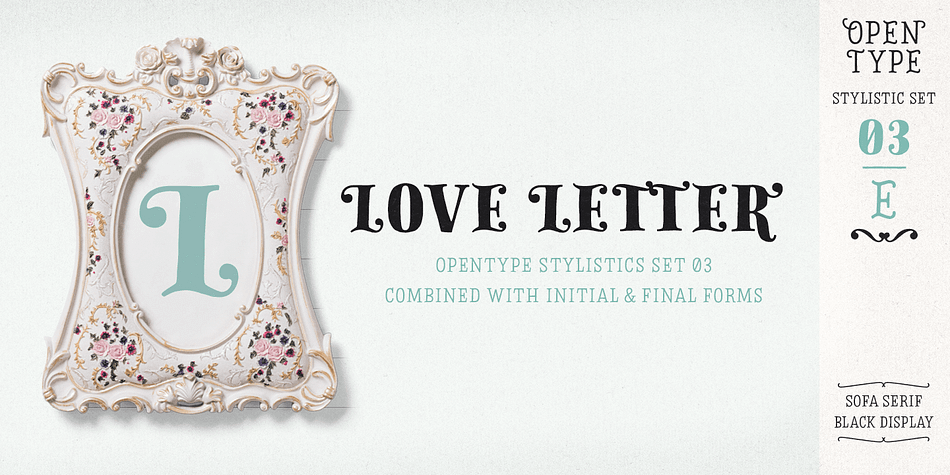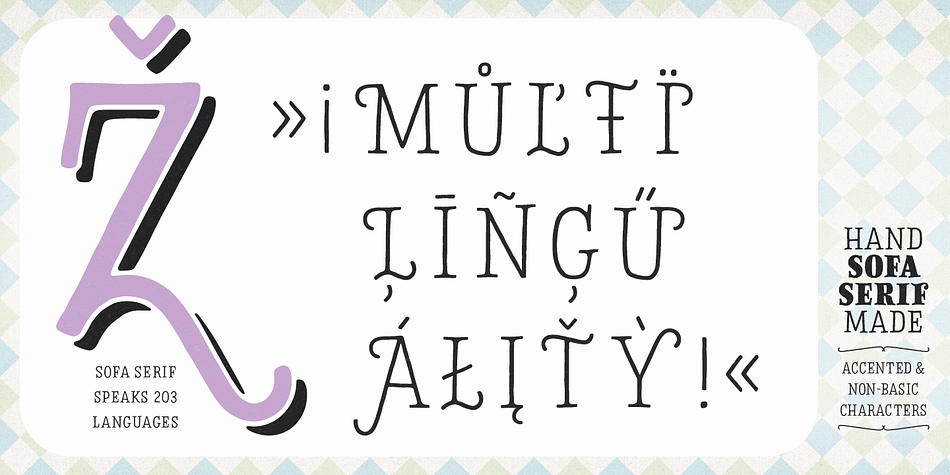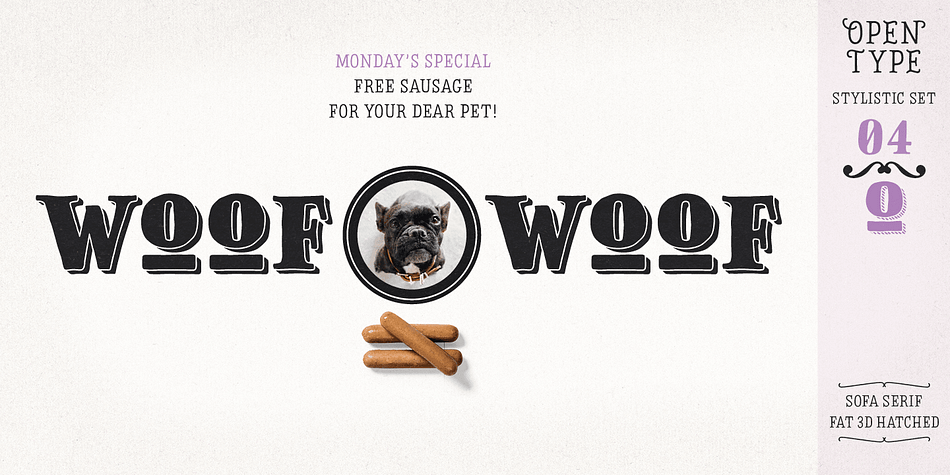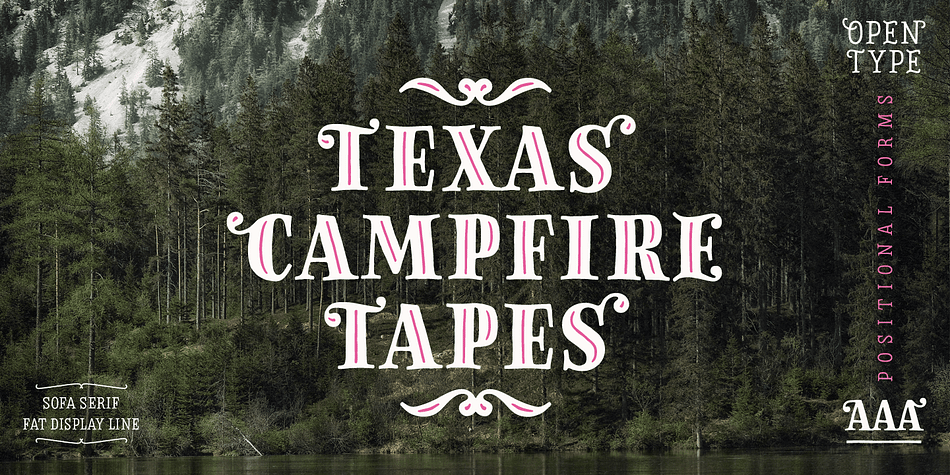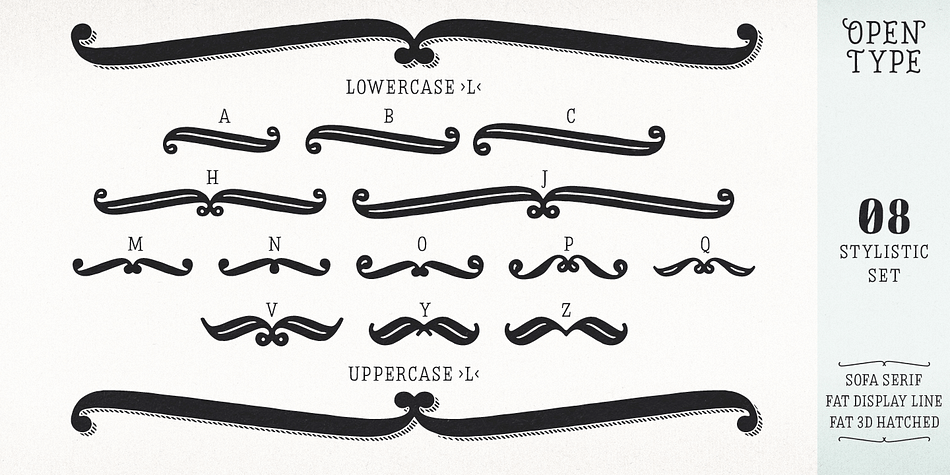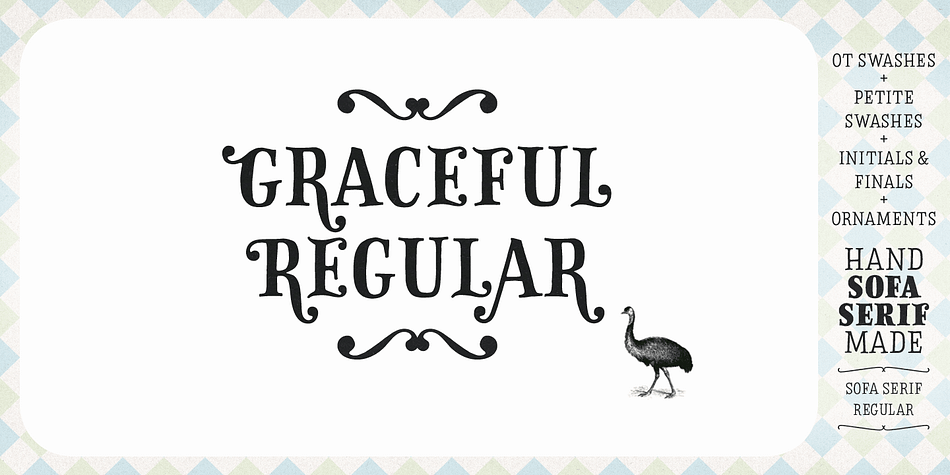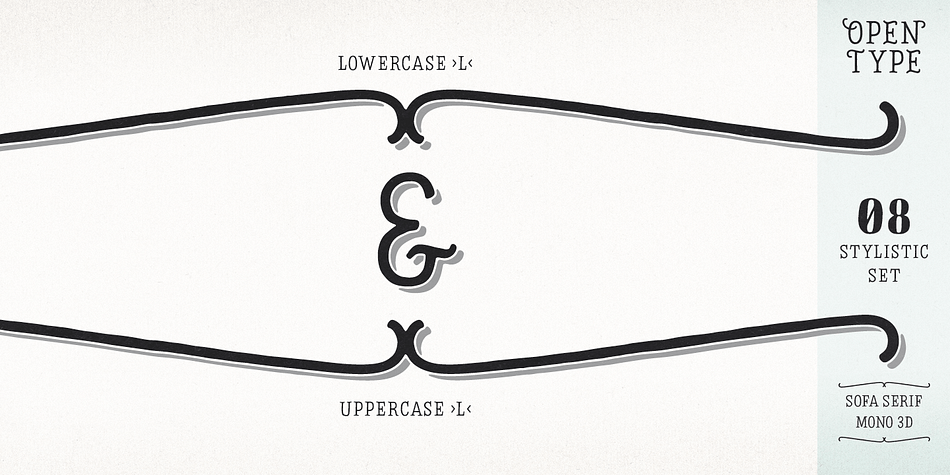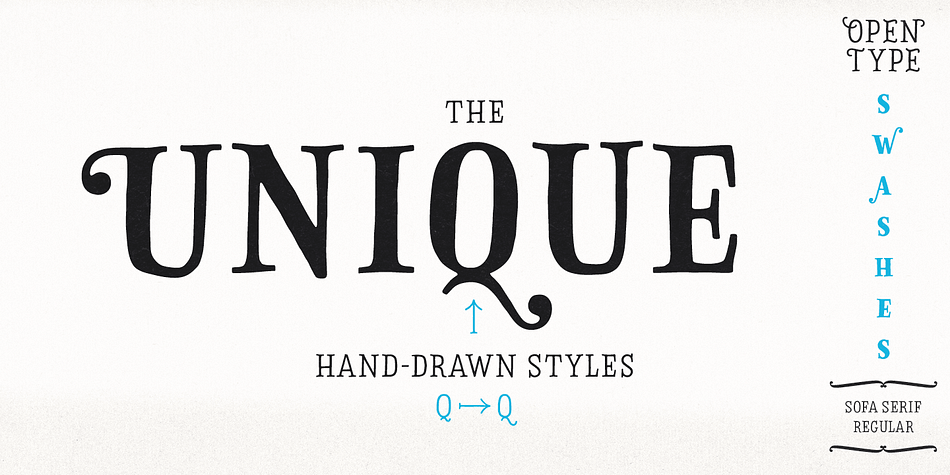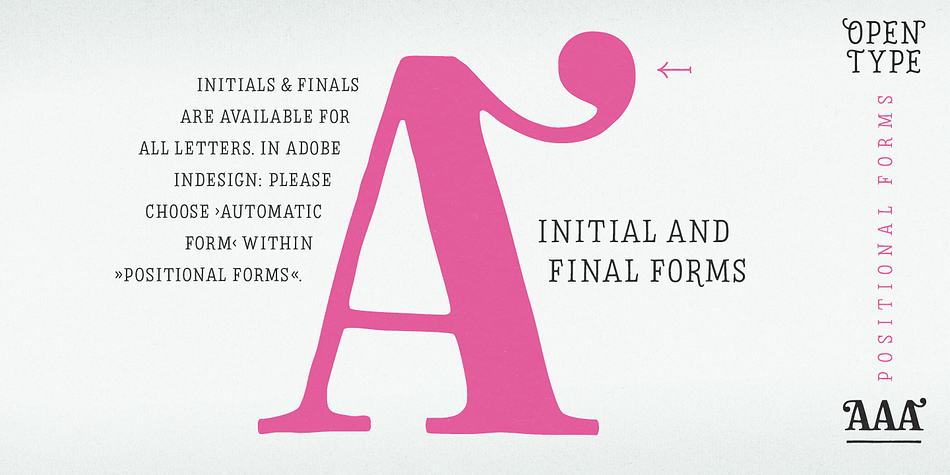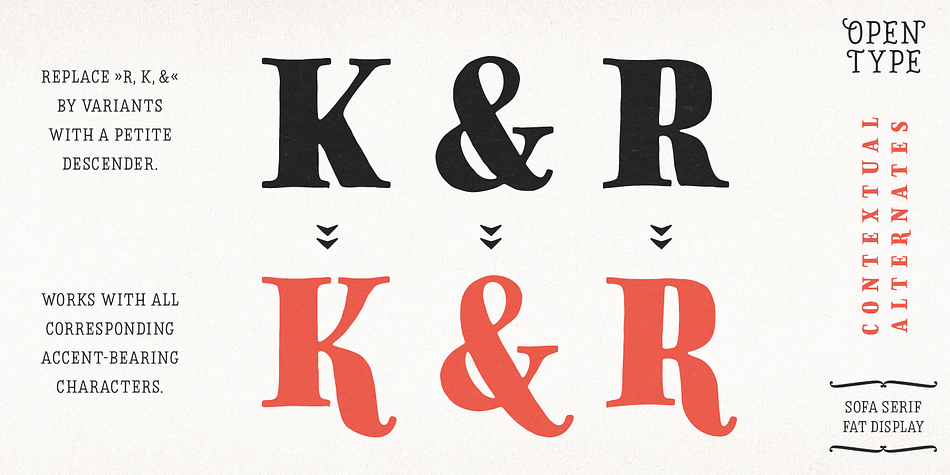
Designed by Georg Herold-Wildfellner, Sofa Serif Hand is a display serif and hand display font family. This typeface has twenty-five styles and was published by FaceType.
All handmade – the versatile Sofa Serif Family.
Sofa Serif’s handcrafted character is friendly and eye-catching. Stylish features and alternates add personality and let you create unique logos and stunning headlines. The family boasts 5 weights from Monoline to Fat, each containing more than 1000 glyphs, plenty of OpenType features and full ISO latin 1 & 2 language support. In addition, extra shadow-, 3D-, inline- and hatched-styles round out the package. 7 font-styles are especially created to be used as layers/layered styles.
High contrast is one of Sofa Serif’s key features. To maintain a wide range of use, choose from two optical sizes: Standard and Display with a maximum of contrast especially in the heavier weights. This makes it a flexible solution for any display and editorial need.
Sofa Serif includes a variety of OpenType alternates which add uniqueness to your work. OpenType features include Swashes- and Titling-Alternates, Beginnings and Endings and a number of alternates within various Stylistic-Sets for even more variation. OpenType Swashes- and Titling-Alternates are smart features which automatically adjust all swashy letters to the available white space. Switch one on and let Sofa Serif do the rest.
Sofa Serif is an organic, rough and decorative hand-drawn/handmade all-caps display-family for packaging, posters, book-covers, wedding-, kids-, food- and logo-design and will best stand out in huge grades. Its handmade origin is subtle yet visible.